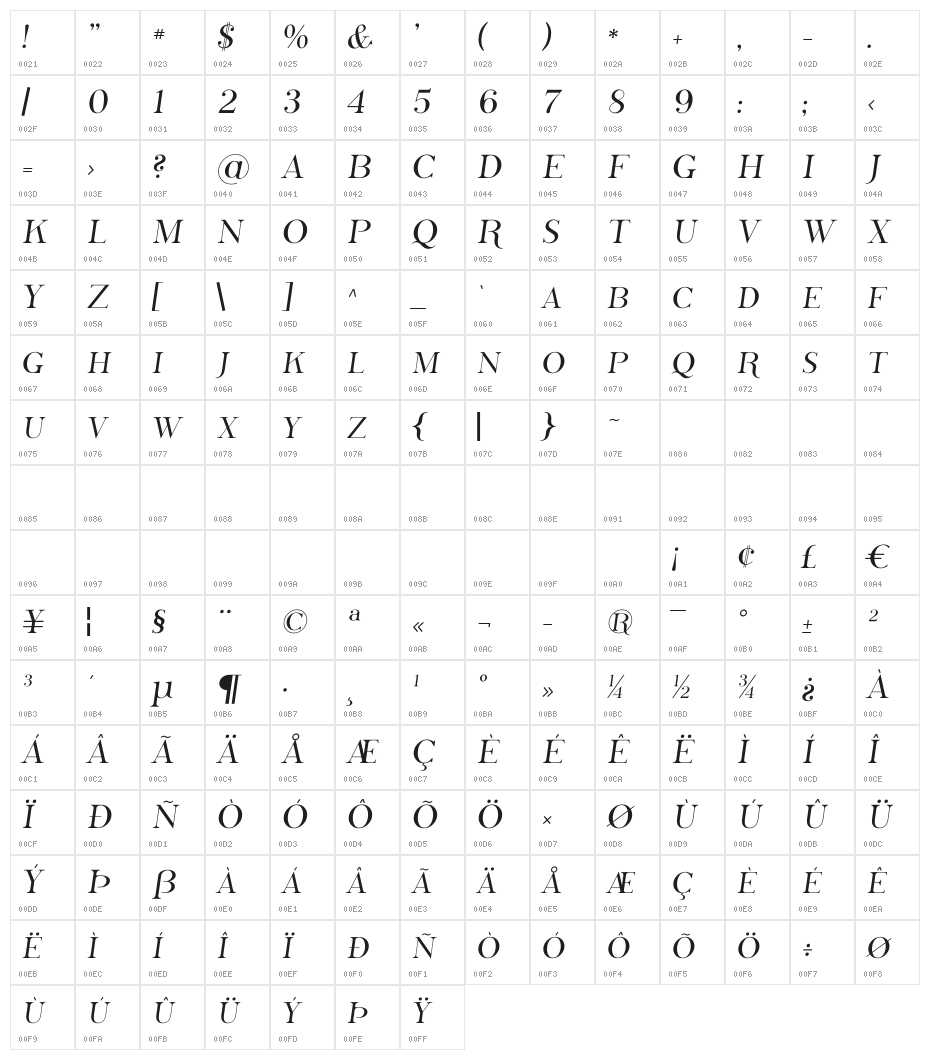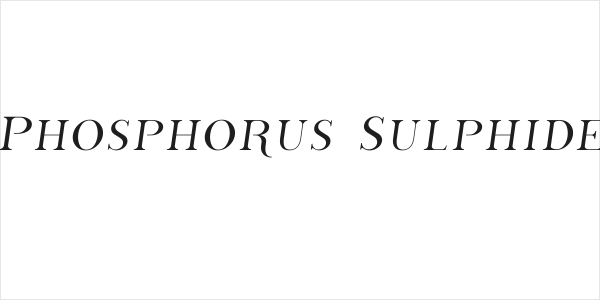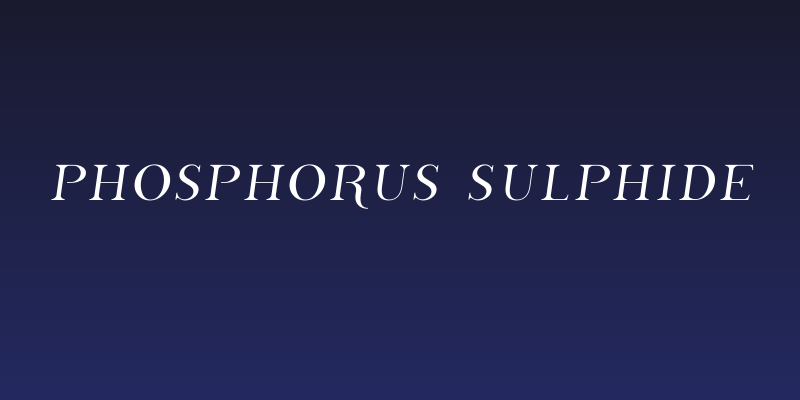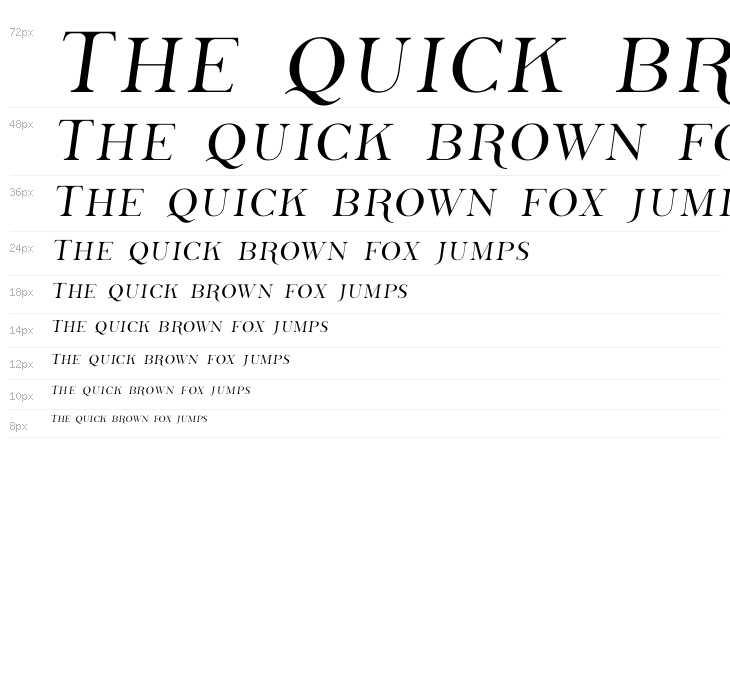
Phosphorus Sulphide Font
Phosphorus Sulphide Description
This elegant serif font features a sophisticated and classic design, characterized by its graceful curves and sharp serifs. The uppercase letters exhibit a refined balance between thick and thin strokes, creating a sense of movement and fluidity. The lowercase letters maintain this elegance, with a slightly more compact form that enhances readability. The numerals are well-proportioned, complementing the overall aesthetic of the font. Special characters are thoughtfully designed, ensuring consistency across all glyphs. This font's timeless appeal makes it suitable for a variety of applications, from formal invitations to editorial layouts.